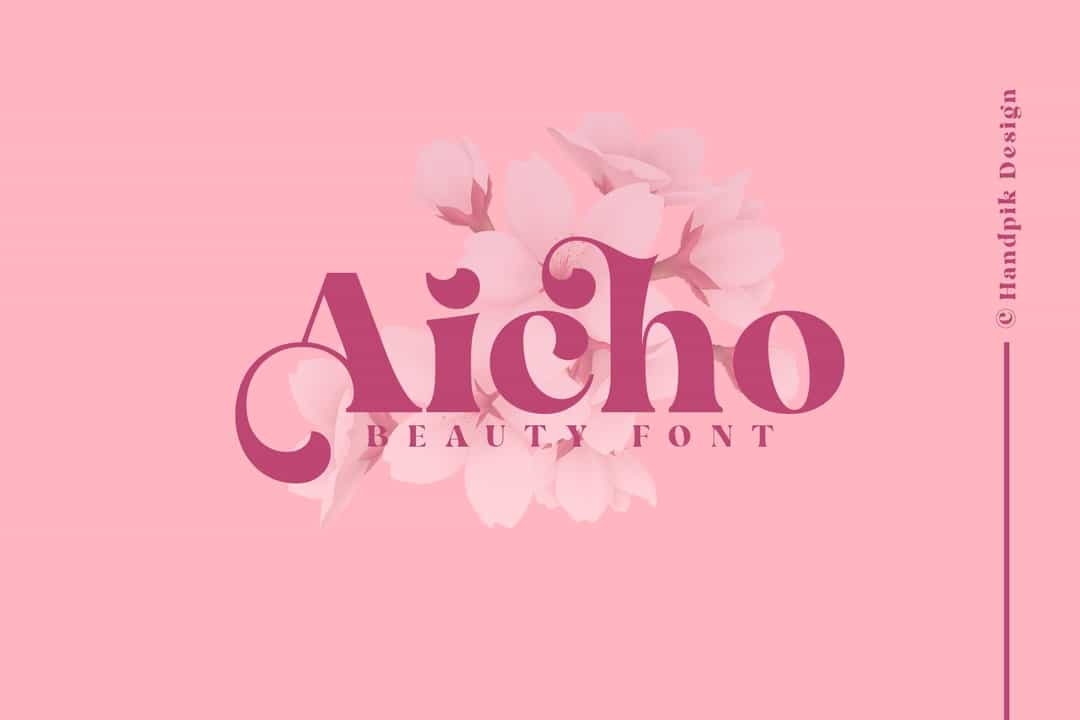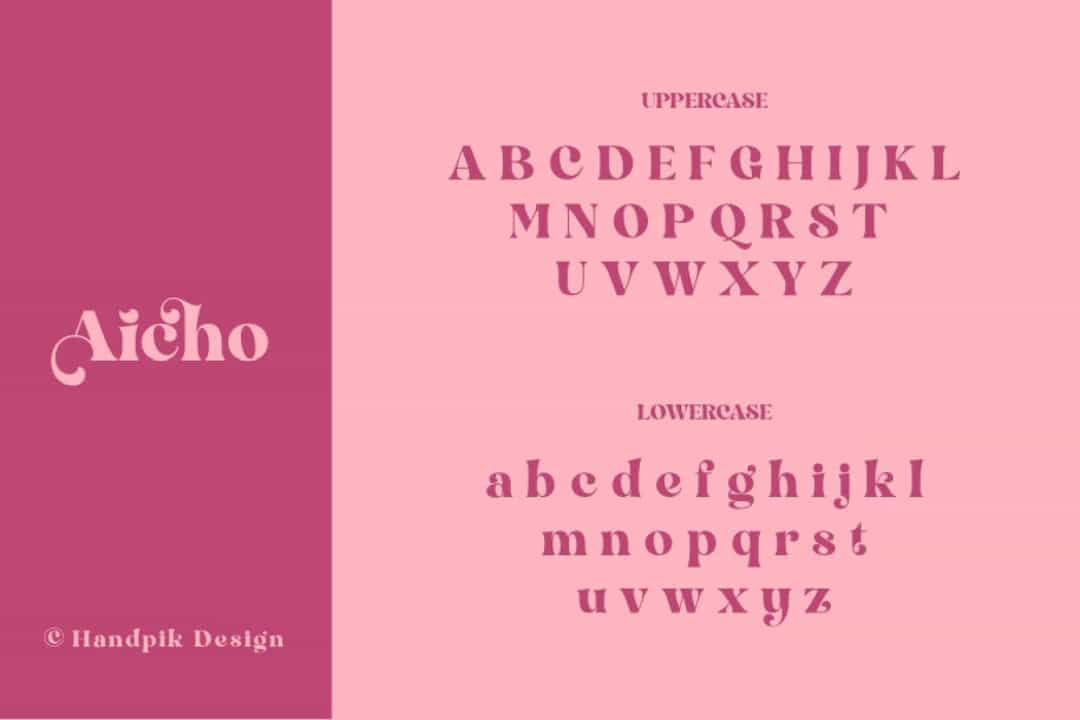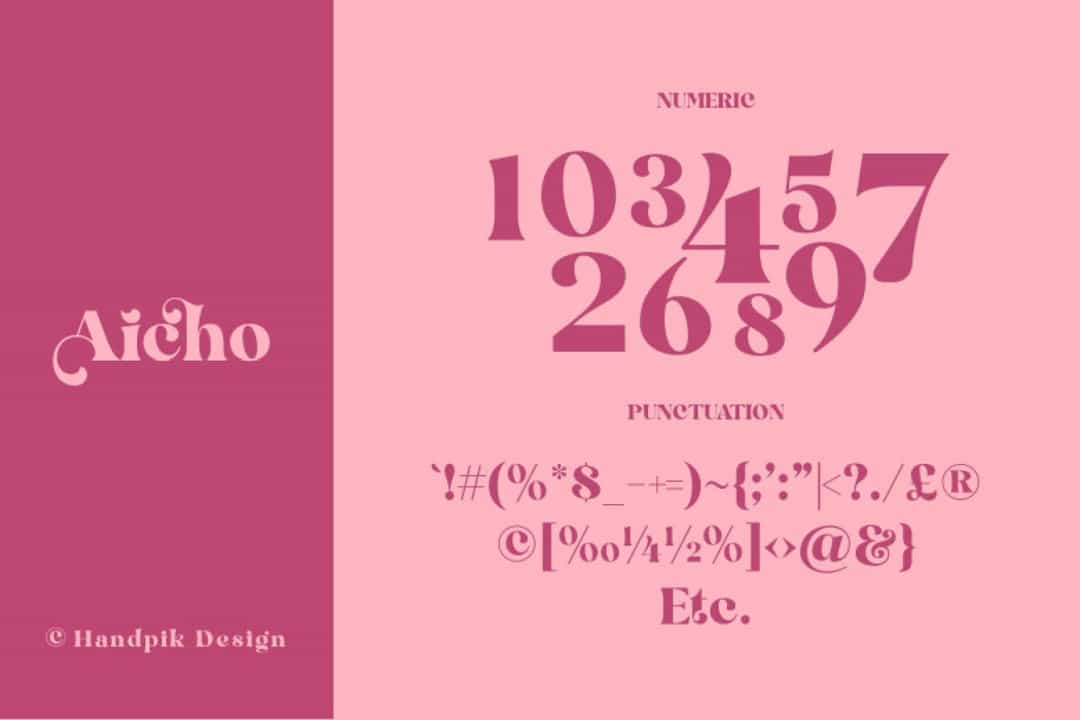
Aicho is an elegant serif-style display font. Perfect for invitation cards and decorations, clothing products like greeting cards and more, Aicho features uppercase numeric, lowercase punctuation as well as multilingual capabilities as well as various ligatures and stylistic alternatives for maximum impact.